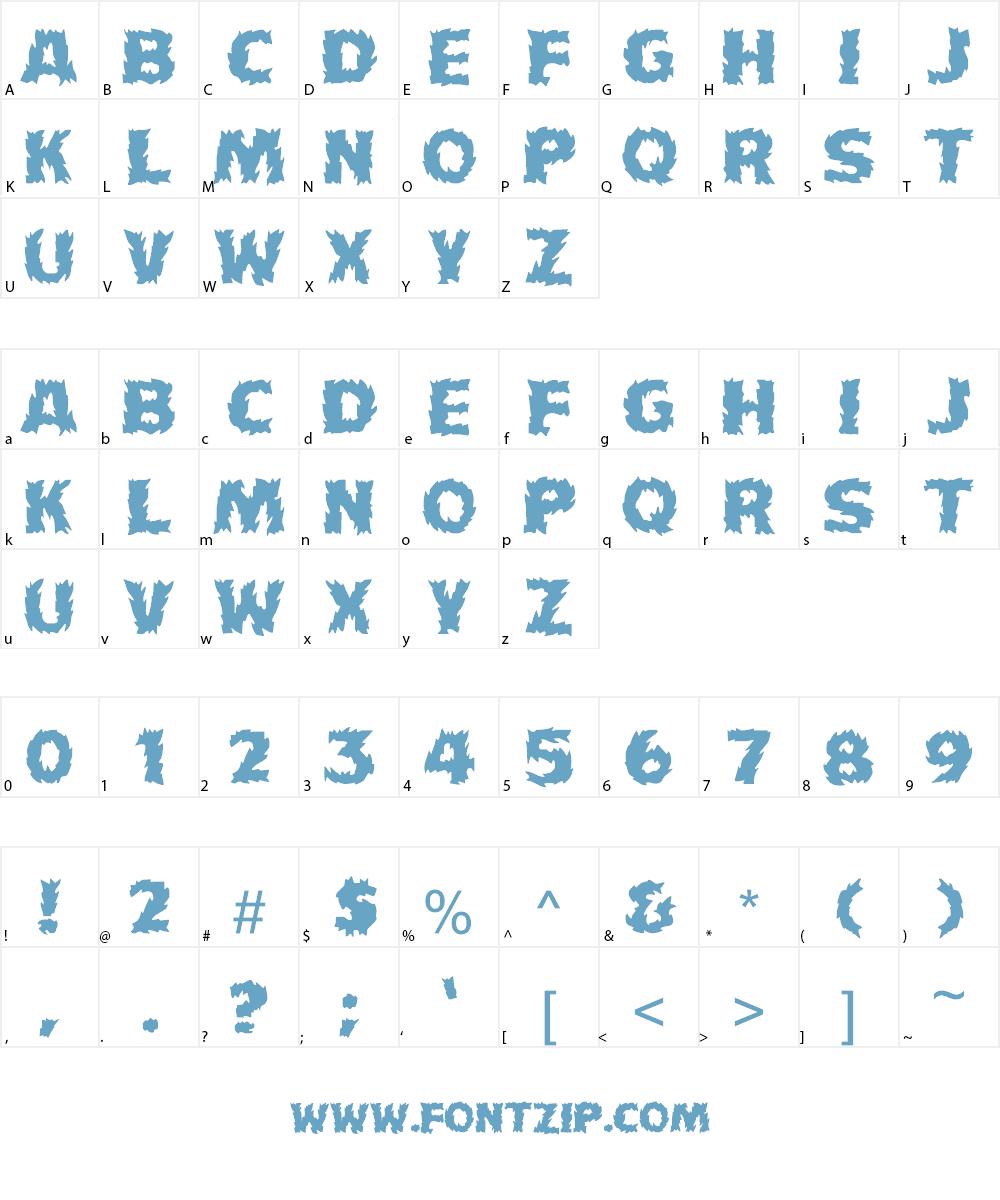
HFF Fire Dancer is based on Flamo, from page 34 of "Special Effects and Topical Alphabets: 100 Complete Fonts" by Dan X. Solo and published by Dover Publications in 1978.